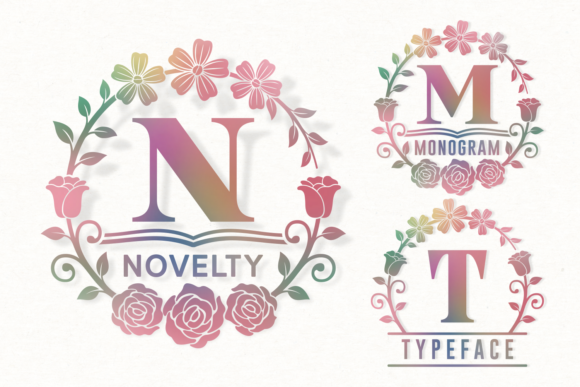
Introducing Novelty Font, the epitome of elegance and charm in the world of decorative fonts. Created by the talented Situjuh, this font is a true masterpiece that will captivate your imagination and leave a lasting impression on any project you embark upon.
With its unique and original design, Novelty Font brings a touch of sophistication to your creative endeavors. Whether you're designing wedding invitations that exude romance or crafting stunning stationary art, this font will effortlessly elevate your work to new heights.
Imagine the awe-inspiring beauty of your wedding invitations adorned with Novelty Font. Its graceful curves and intricate details will leave your guests enchanted and eagerly awaiting the big day. As each stroke of this font gracefully dances across the page, it adds an air of elegance that is simply unmatched.
But Novelty Font isn't limited to just wedding invitations. Its versatility allows it to shine in a multitude of projects. From eye-catching social media posts that stop users in their tracks to captivating advertisements that demand attention, this font has the power to make your message unforgettable.
Let your creativity run wild as you explore the endless possibilities that Novelty Font offers. Its versatility extends beyond traditional uses, making it perfect for branding, packaging, logos, and so much more. Each character is meticulously crafted to ensure a seamless flow and impeccable design, allowing you to create a cohesive and visually stunning brand identity.
With its wide range of font styles for monograms, Novelty Font enables you to personalize your projects and add a touch of exclusivity. Stand out from the crowd and make a statement with custom monograms that reflect your unique style and personality.
Don't settle for ordinary when you can have extraordinary. Novelty Font is the key to unlocking a world of creativity and imagination. Let its captivating charm elevate your designs and leave a lasting impression on those who behold them.